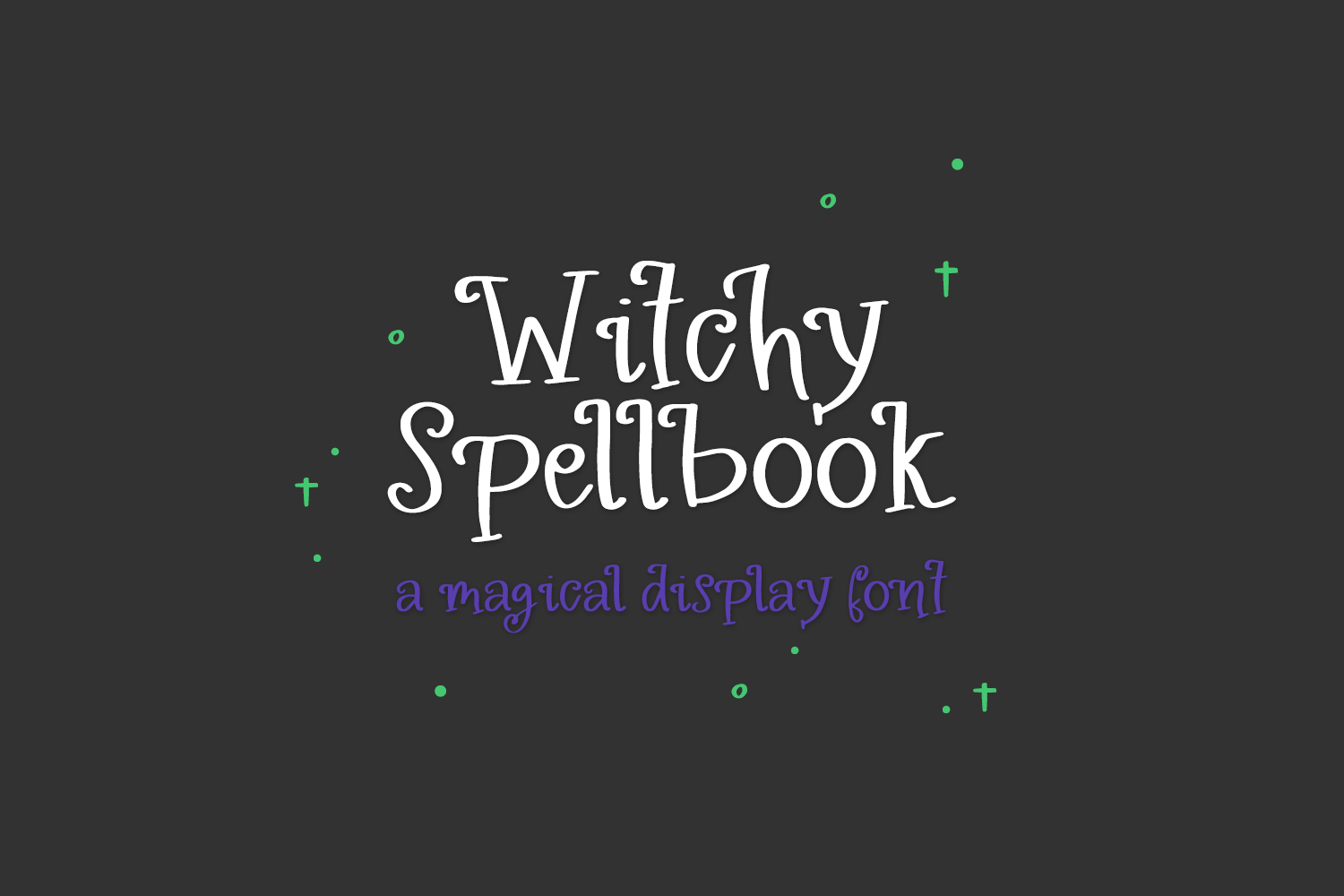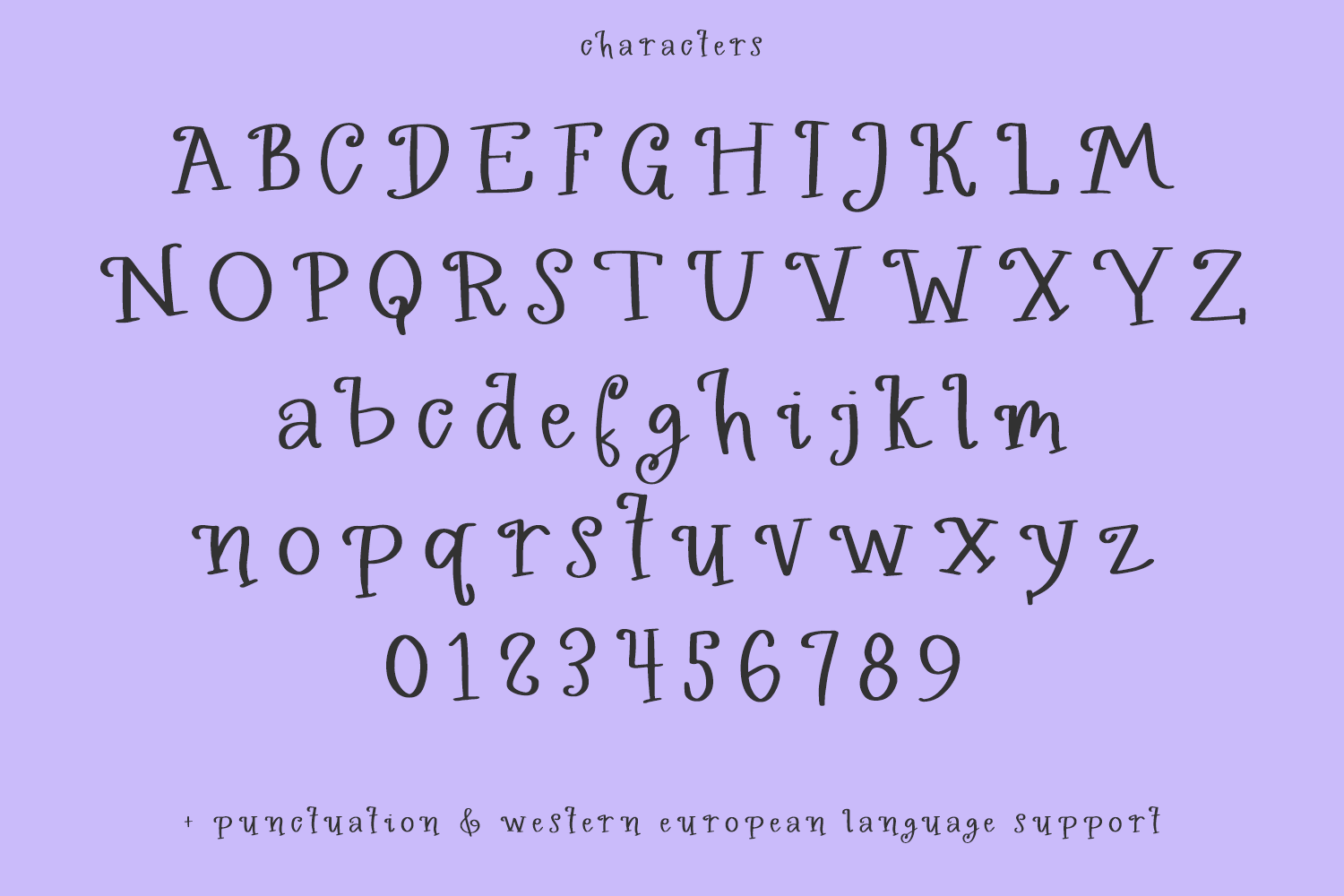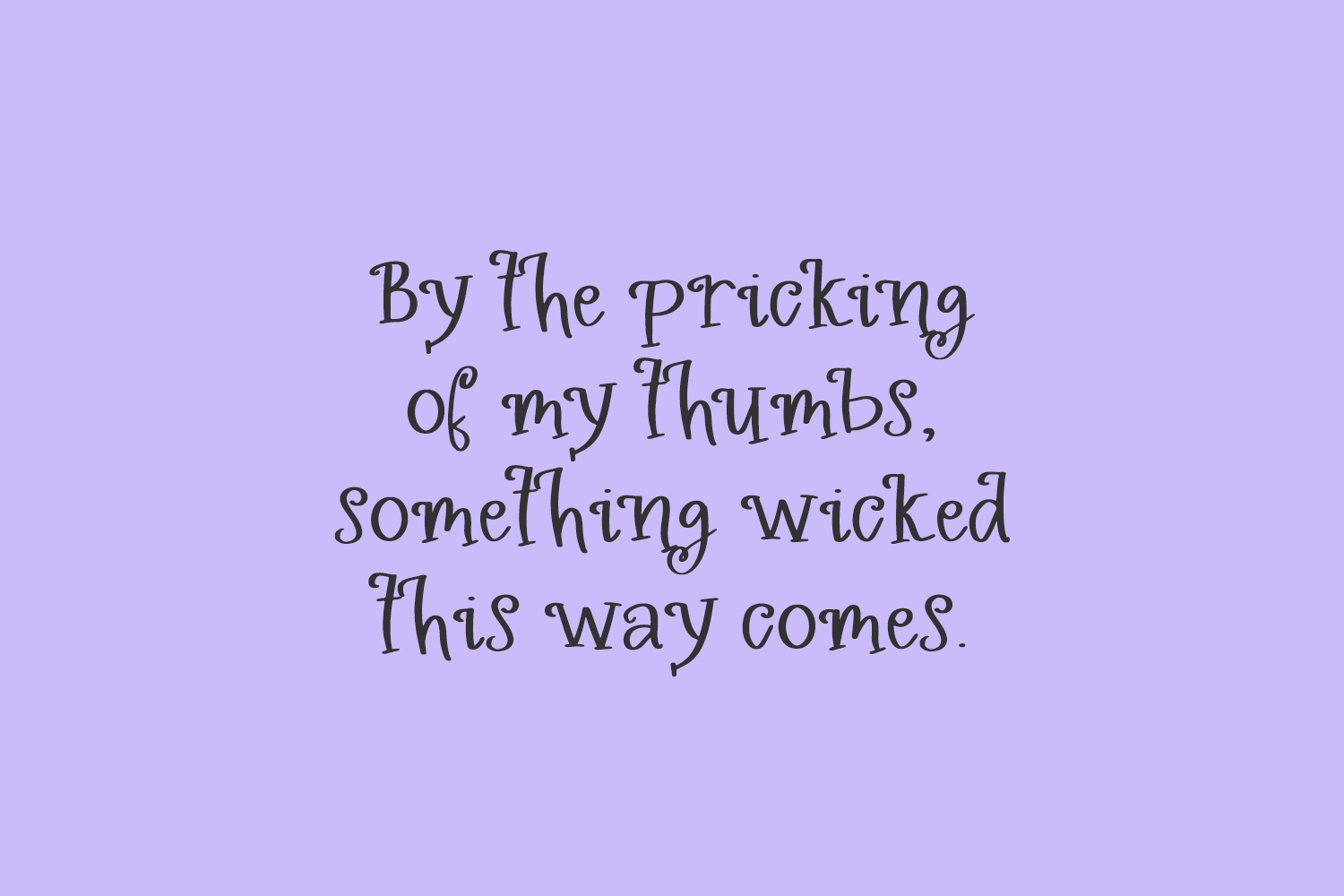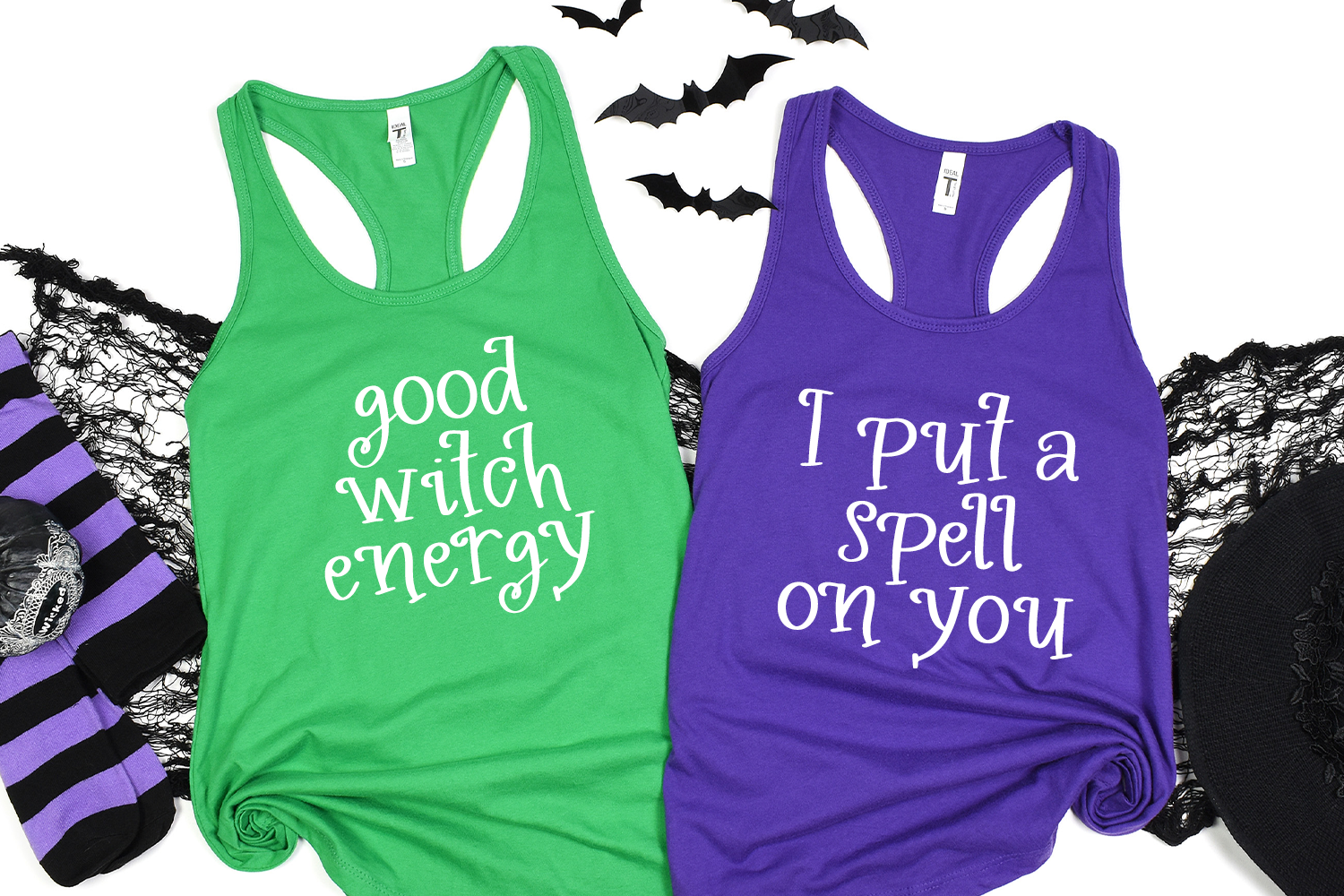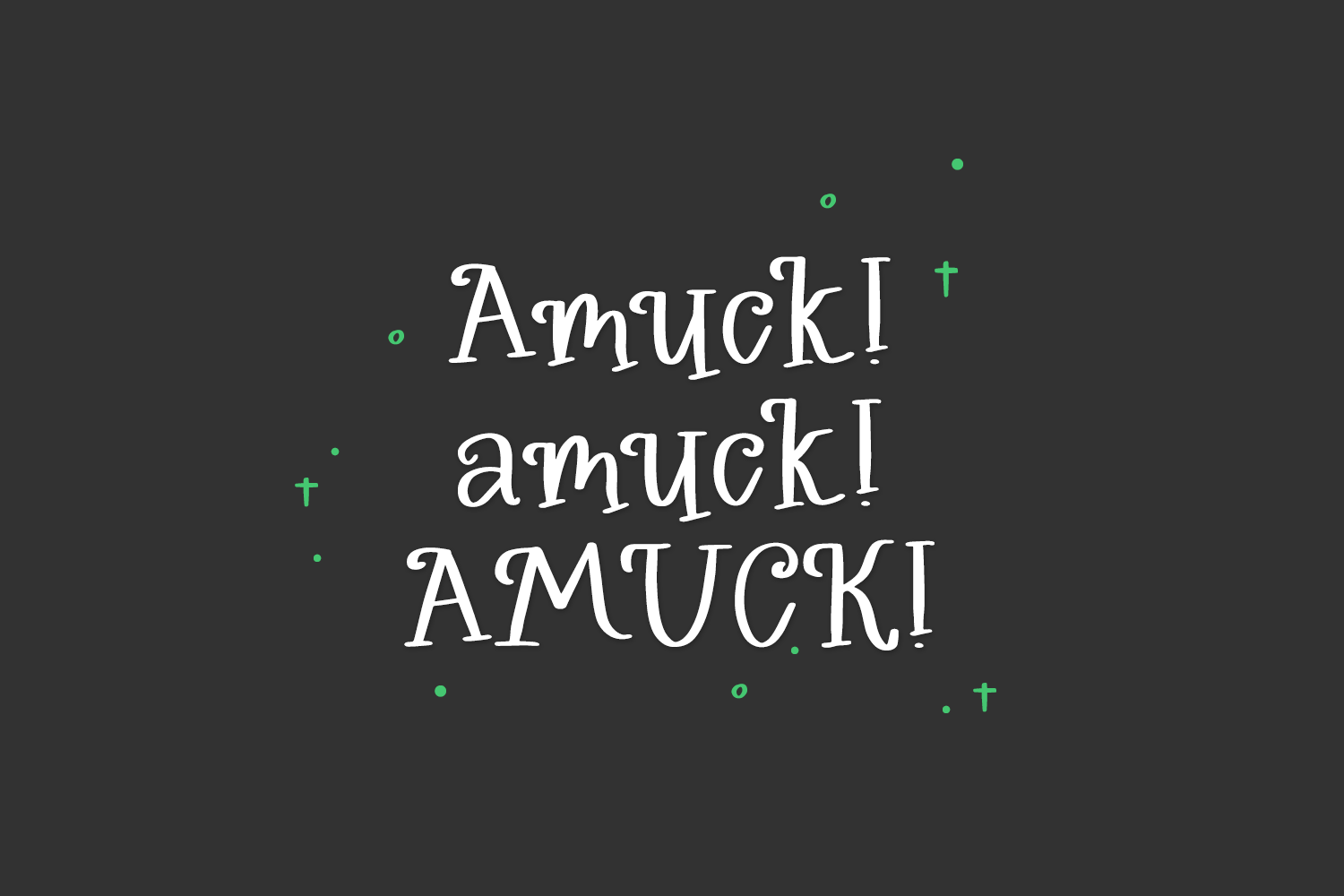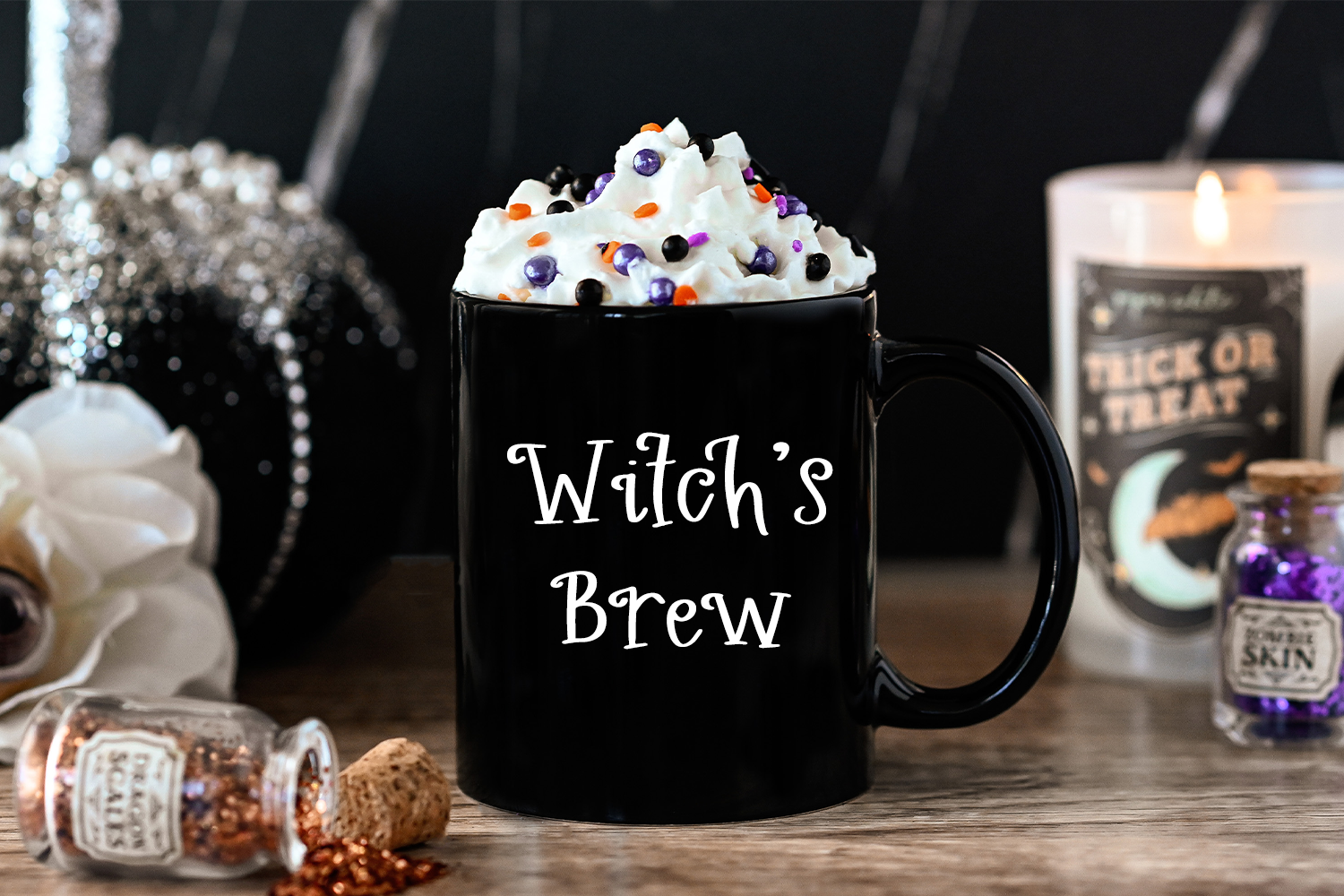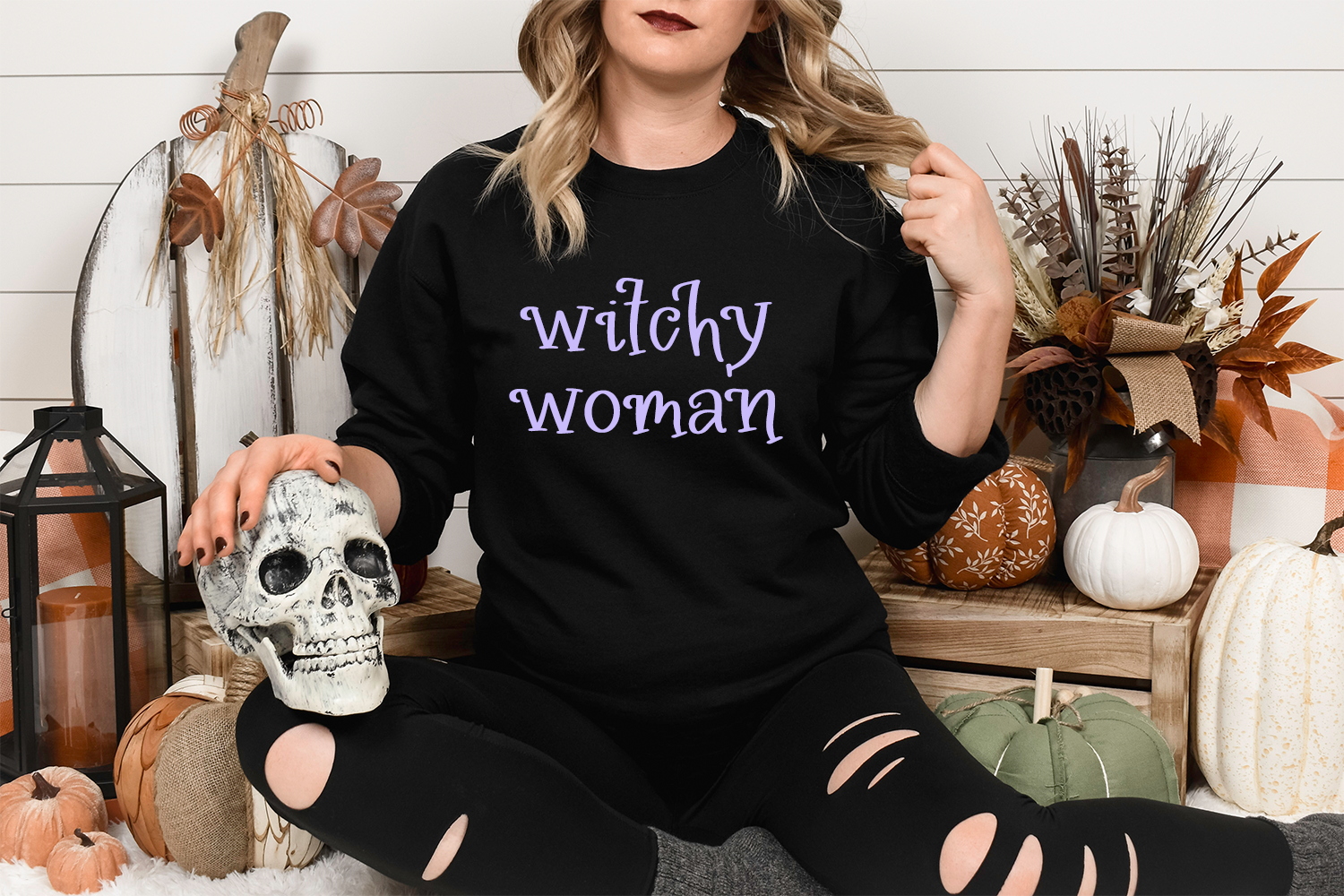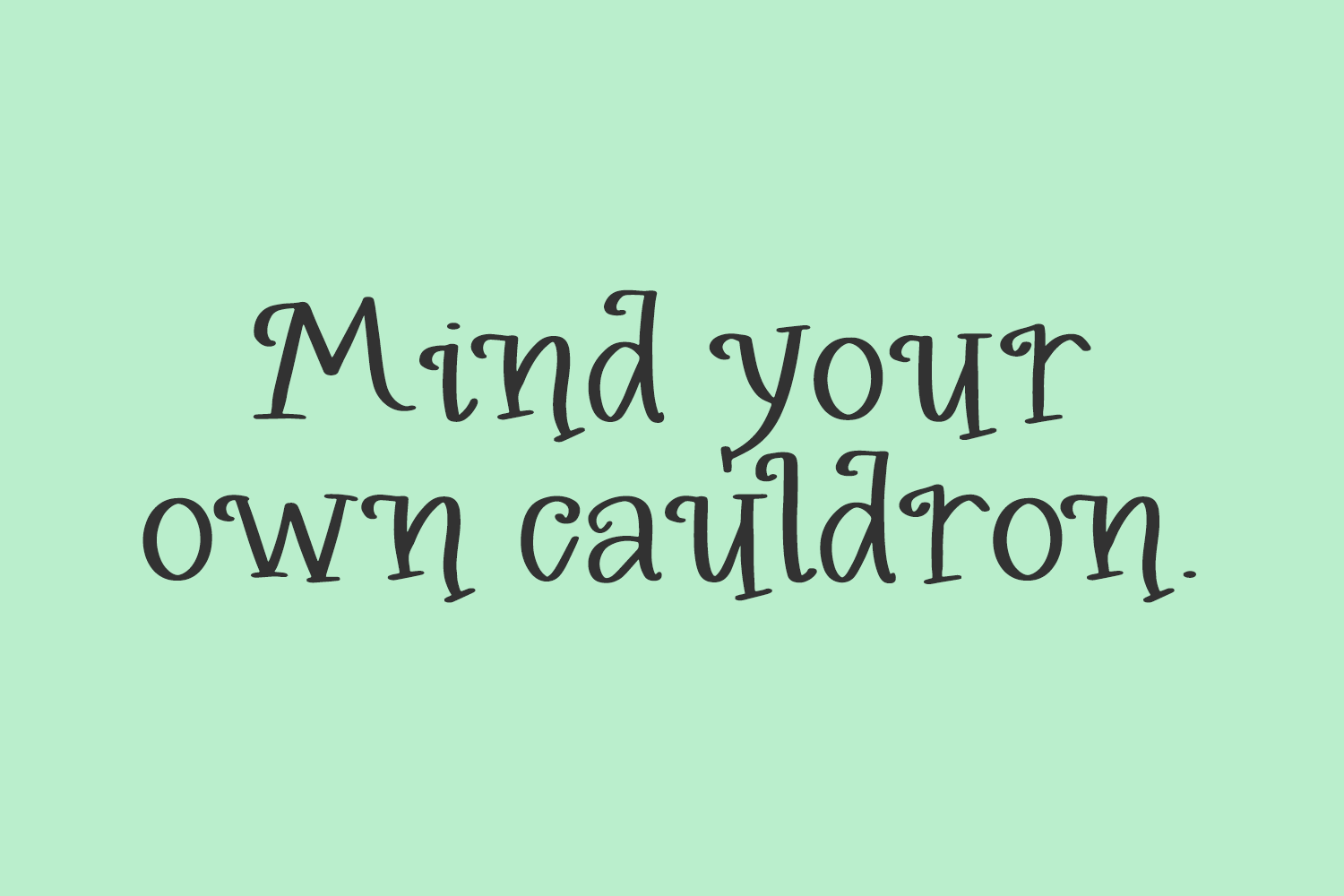
Witchy Spellbook Display Font
Witchy Spellbook is a whimsical handwritten serif font with curly little details. This font would be a great children’s font for Halloween – it looks more like it belongs in a Halloween cartoon than it does in a haunted house or horror movie, making it a much brighter, more friendly type of Halloween font. This font is fantastic for logos & branding, greeting cards, painted banners, digital planners, note-taking apps, Canva, Cricut projects, Silhouette projects, designing SVG files, laser cutting projects, & more.